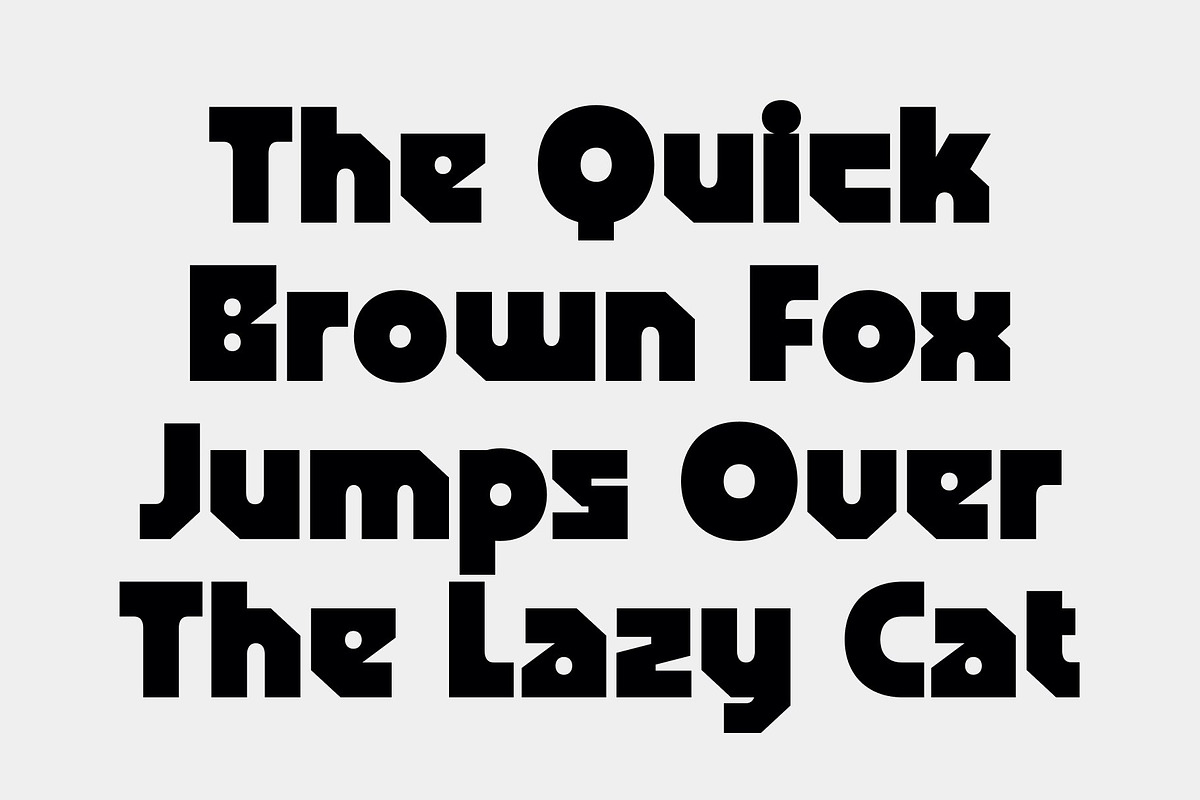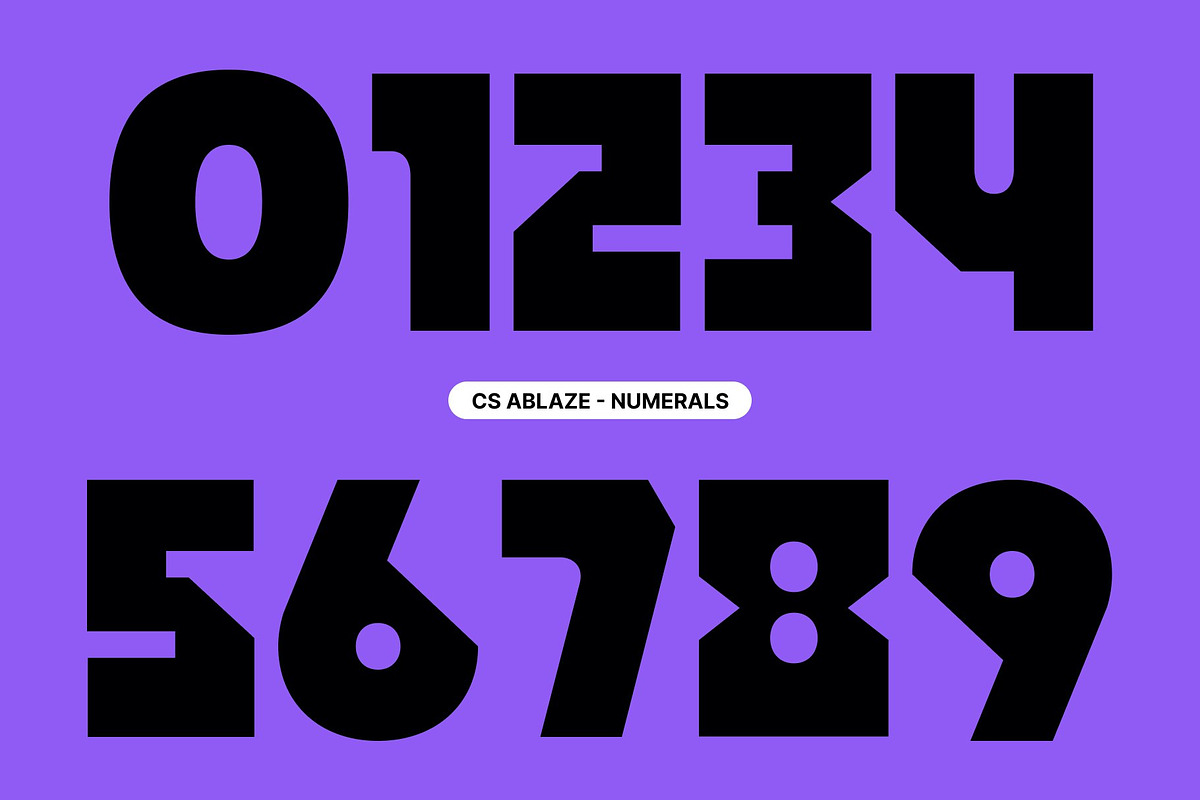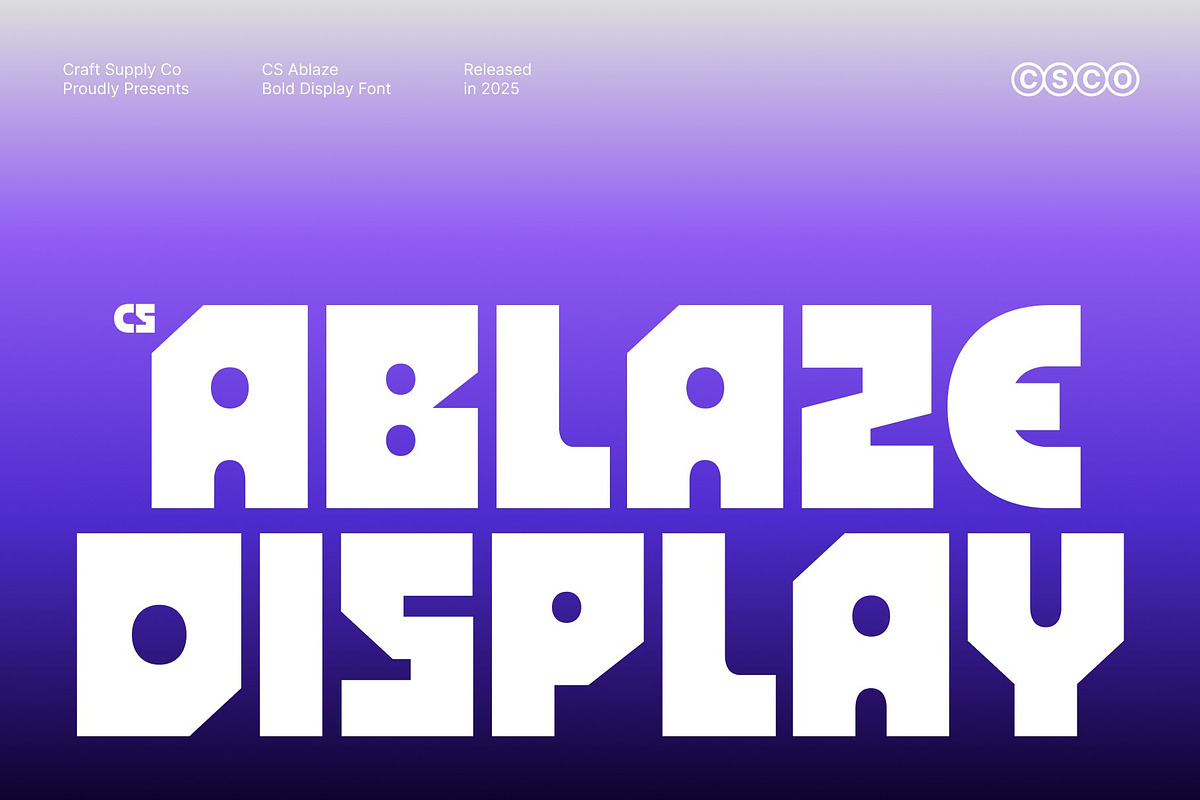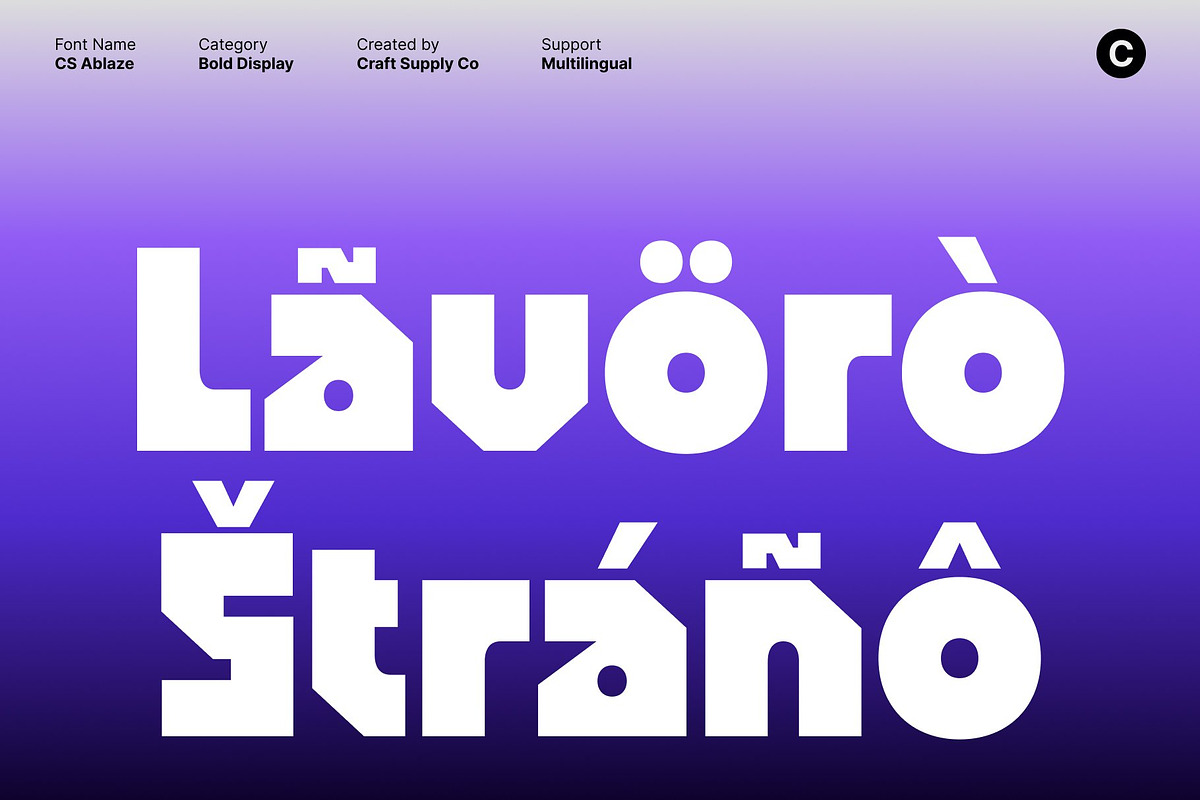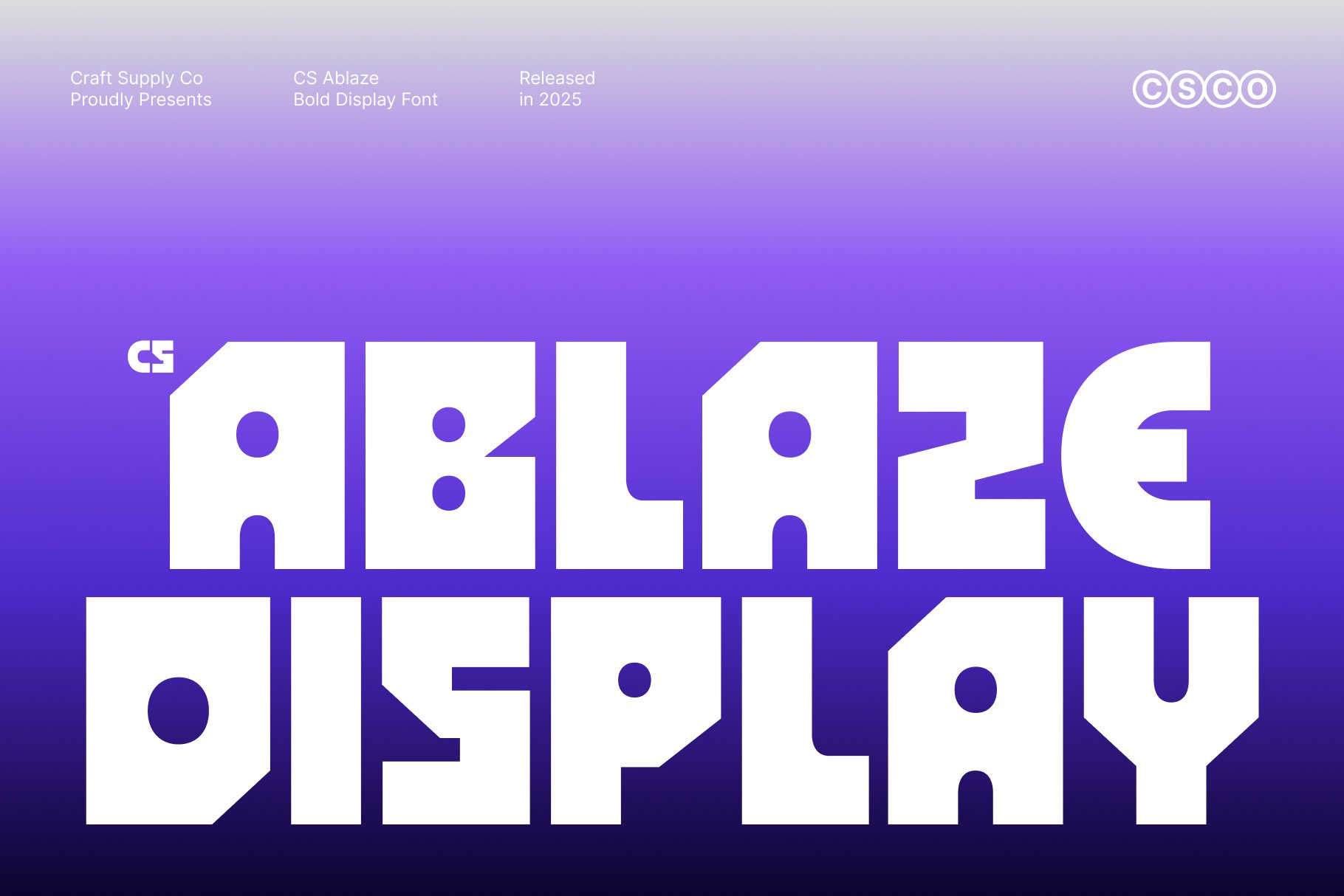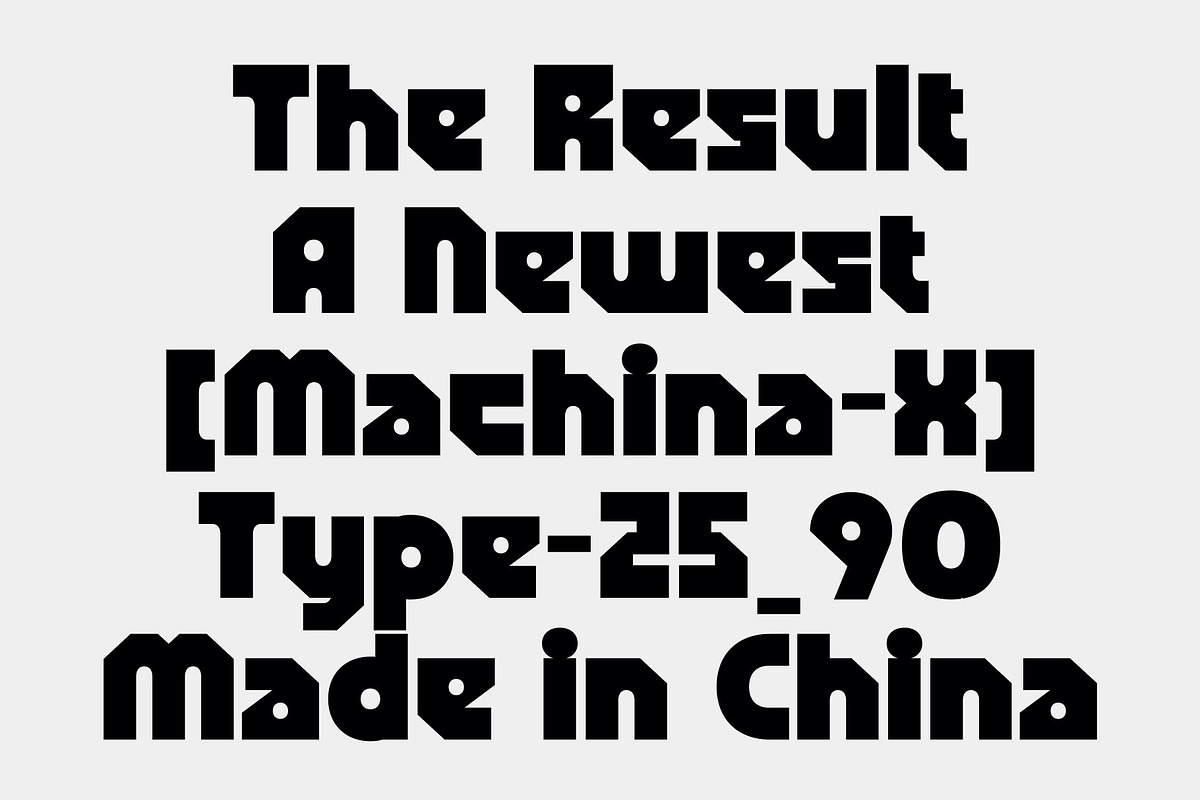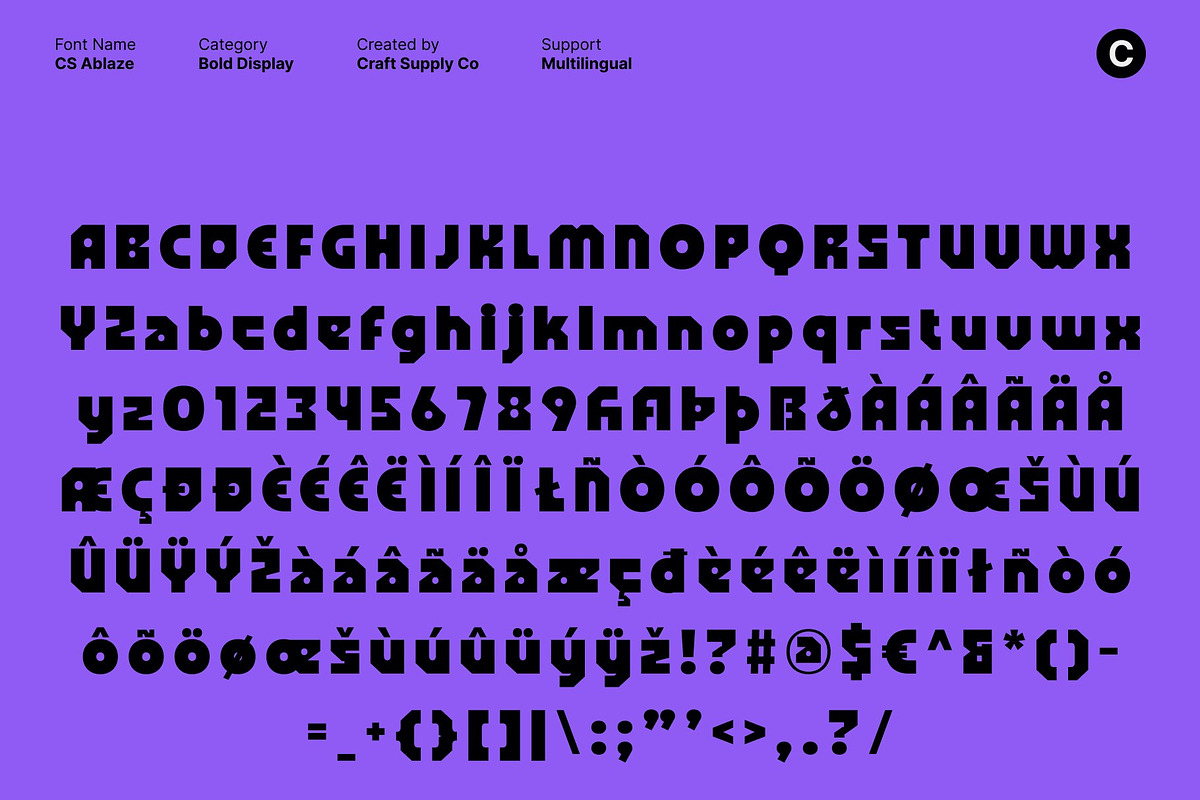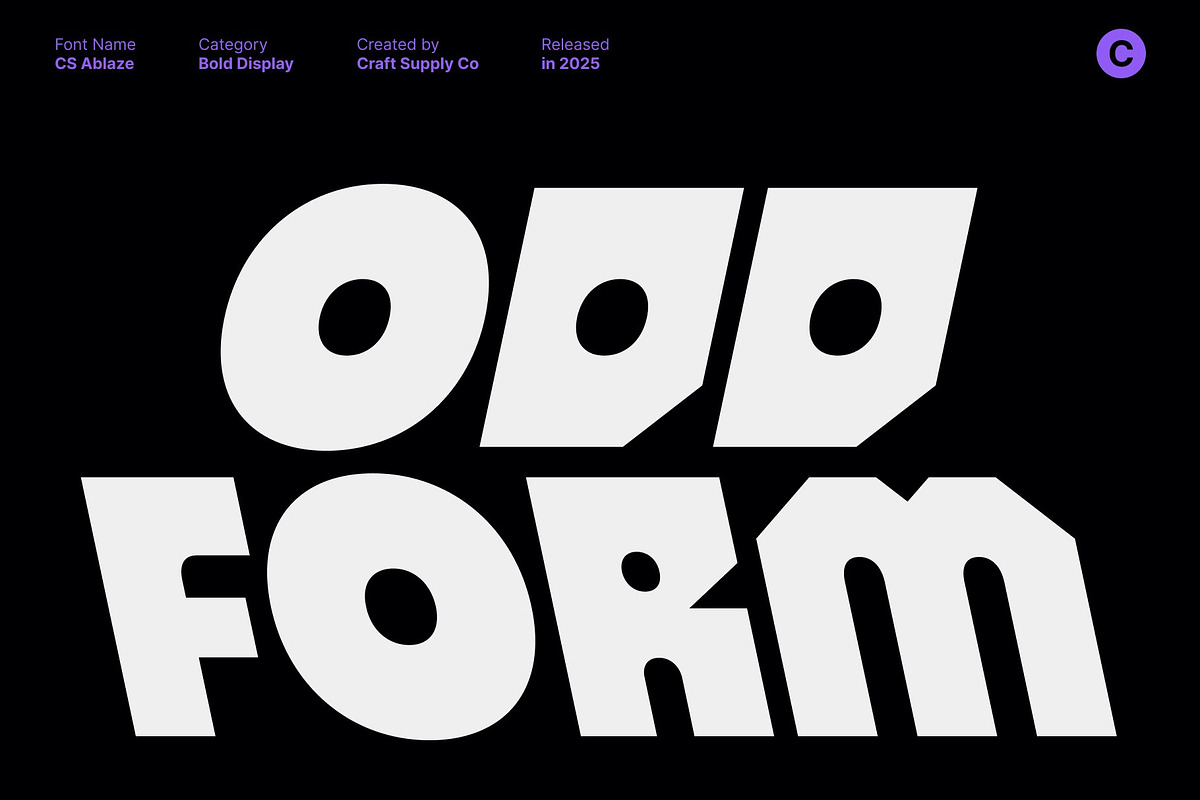
CS Ablaze – Bold Display Font
CS Ablaze – Brutalist Display Font with Industrial Power
Bold Sans Serif with Brutalist Geometry This is a bold display sans serif font built from blocky, brutalist shapes and a strong geometric foundation. Its heavy structure and solid construction create an uncompromising visual presence, inspired by industrial design and experimental typography. Each letter feels firm and architectural, giving the font a raw, powerful identity that immediately commands attention.
Industrial and Experimental Character Rooted in industrial aesthetics, embraces rigidity, sharp edges, and bold proportions. The experimental approach to form gives it a distinctive attitude modern, rebellious, and unapologetic. This font feels mechanical and expressive at the same time, making it ideal for designs that aim to break conventions and stand out from the ordinary.
Designed for Expressive Display Use This font a excels in large-scale display applications where impact matters most. Its bold weight and geometric clarity ensure excellent readability while delivering strong visual force. Headlines, titles, and key messages appear confident and striking, making the font perfect for posters, signage, album artwork, and statement-driven layouts.
Perfect for Posters, Music, and Bold Branding Whether used for attention-grabbing poster designs or band merchandise seeking a powerful identity, delivers a lasting impression. Its brutalist style and industrial energy help messages feel loud, fearless, and memorable ensuring your design captivates audiences and leaves a strong, unforgettable mark.